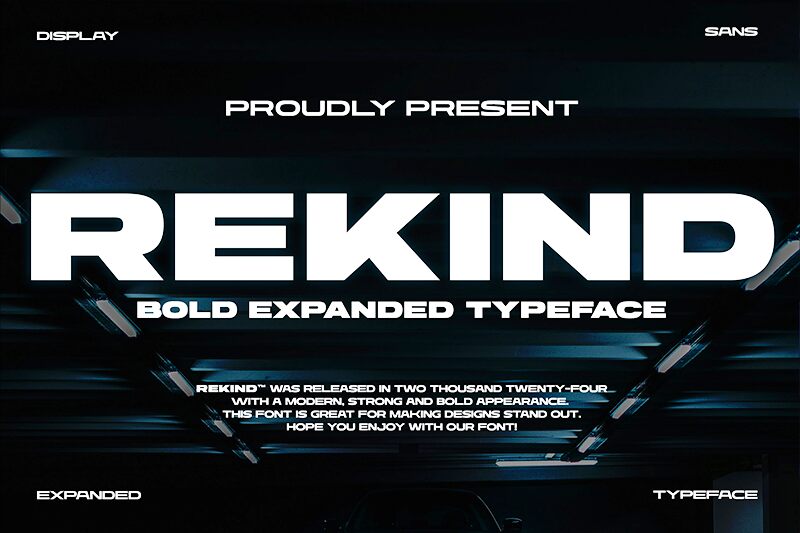
Rekind Expanded font by Multype Studio is a sleek bold sans serif geometric typeface. With minimalistic features, the design of this expanded typeface conveys modernism and a strong visual impact in both large and small texts. Rekind Expanded also has slightly artistic letters included to help users build unique projects.
When Rekind Expanded it’s used in your Branding, headlines, posters, packaging layout, logos, titles development, or social media campaigns the outcome is quite eye catchy with no excess design information included. Other relevant use cases of this font include album covers posters for music bands or movies.